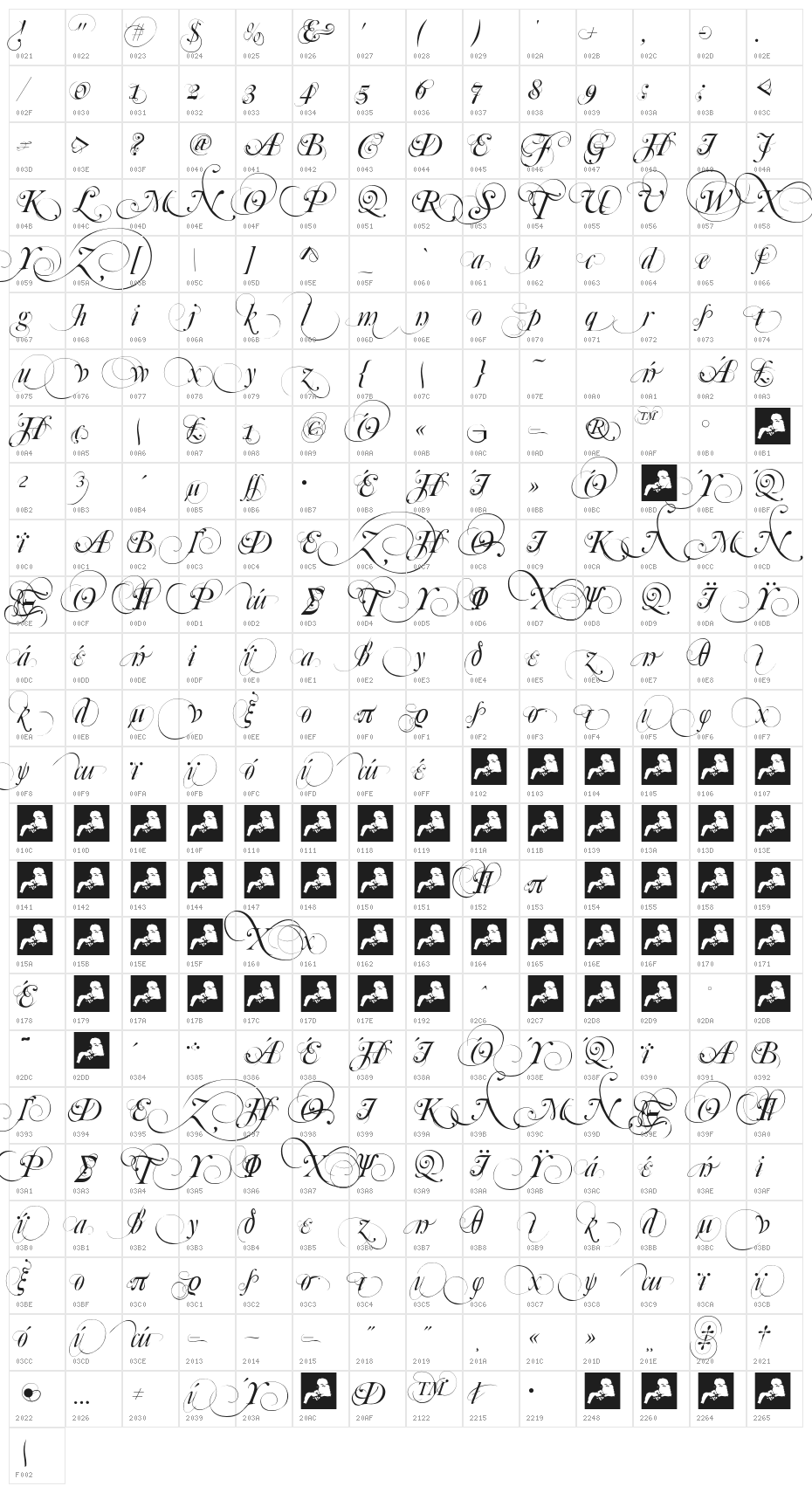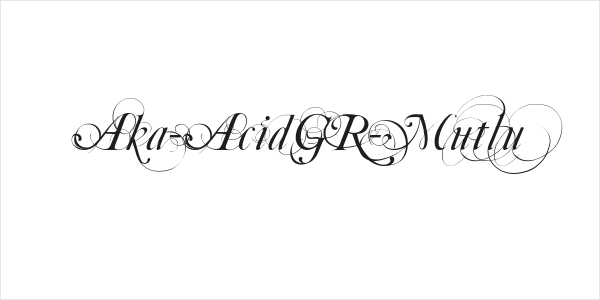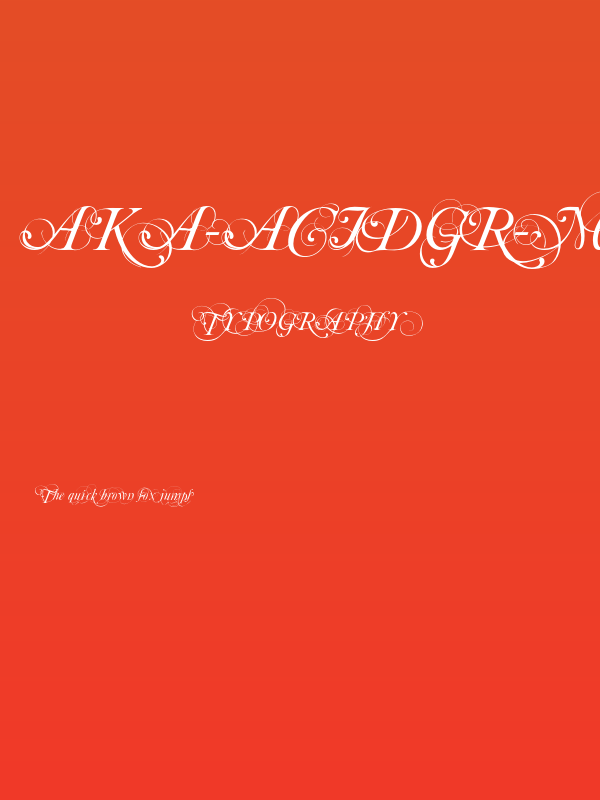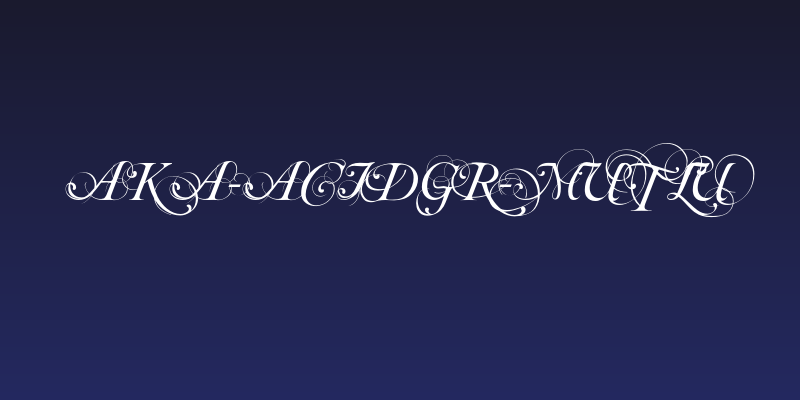
Aka-AcidGR-Mutlu Font
Aka-AcidGR-Mutlu Description
This font is a highly decorative script style characterized by its elaborate and intricate swirls and flourishes. The uppercase letters are particularly ornate, with extended loops and curves that give a sense of elegance and sophistication. The lowercase letters maintain a consistent style, with smooth connections and flowing lines. The numerals and special characters are equally embellished, ensuring a cohesive look throughout. This font is designed to capture attention and convey a sense of luxury and artistry.
| Use Case | Logos, Invitations, Decorative Headlines |
| Proposed Projects | Ideal for wedding invitations, luxury branding, high-end product packaging, and artistic posters. |